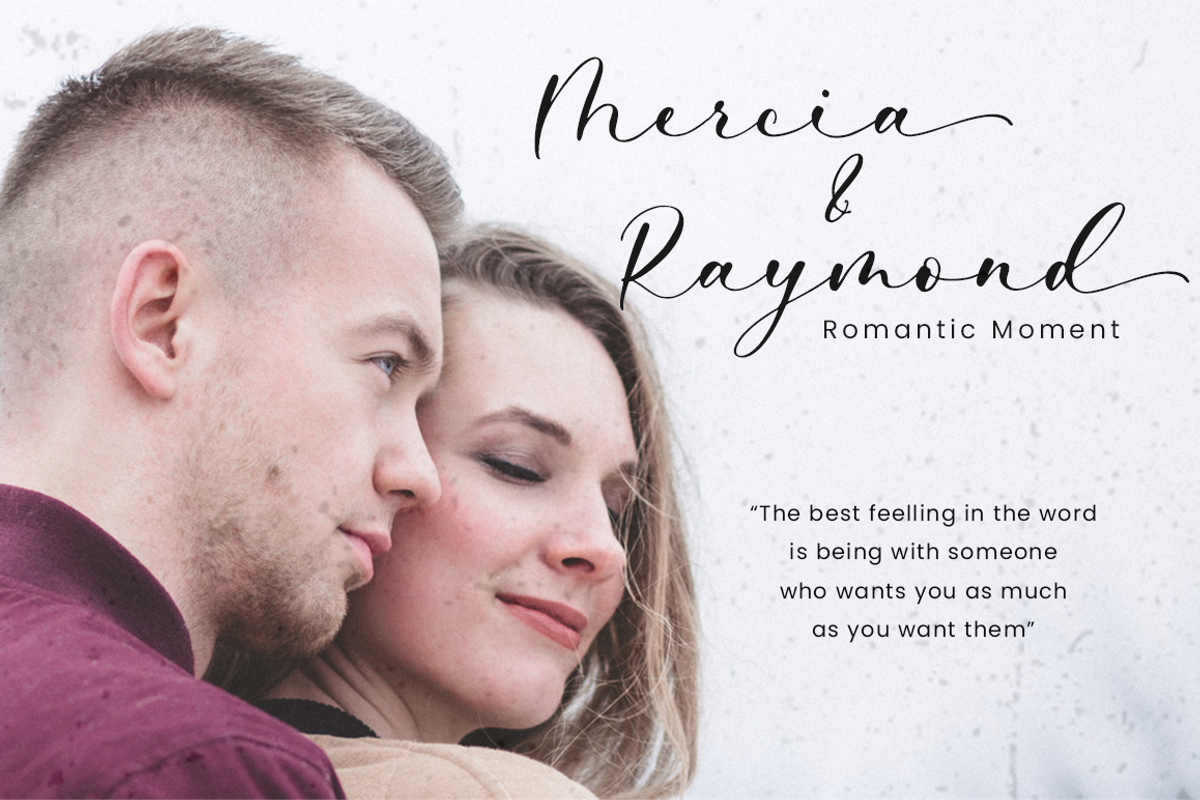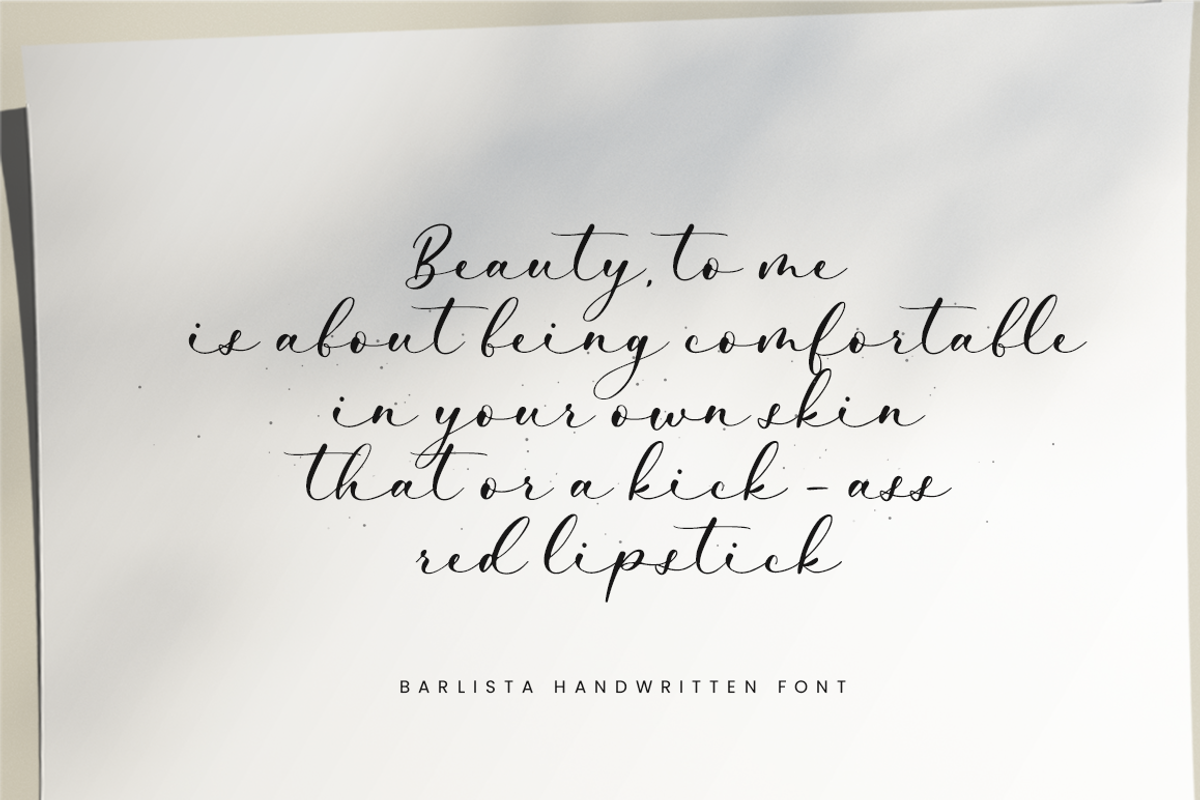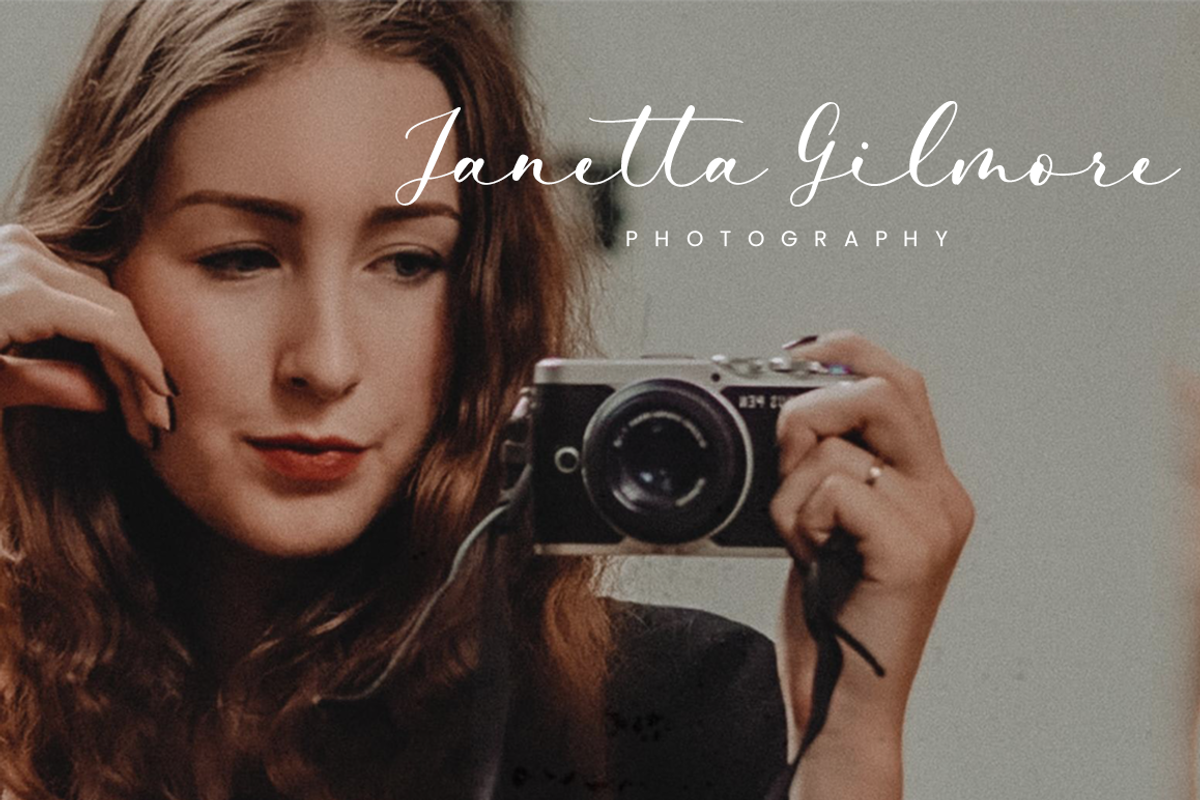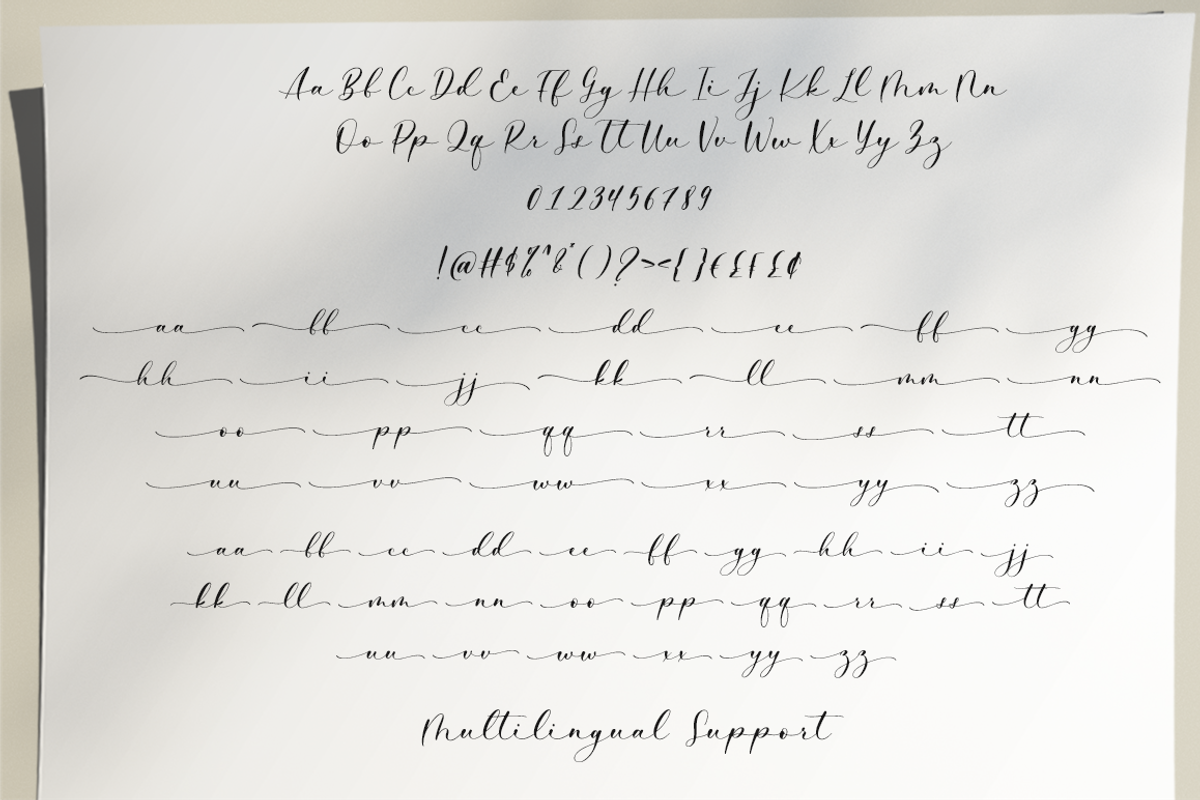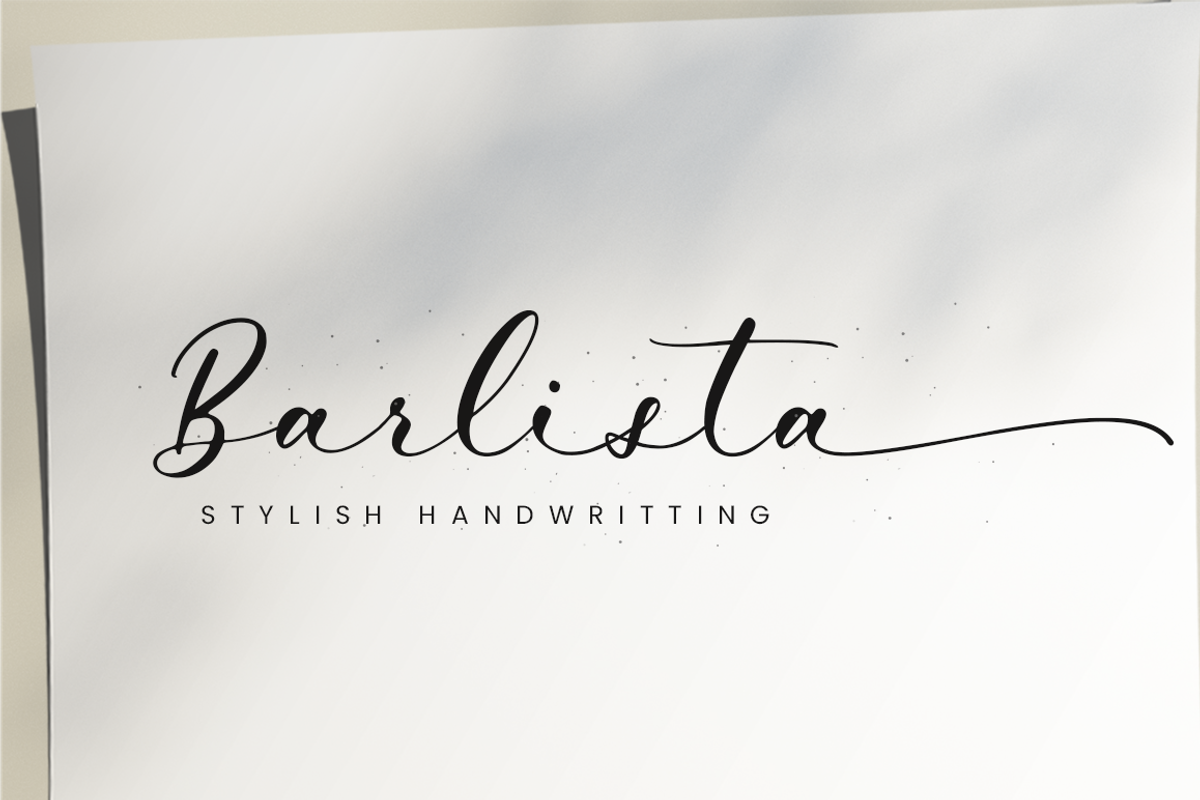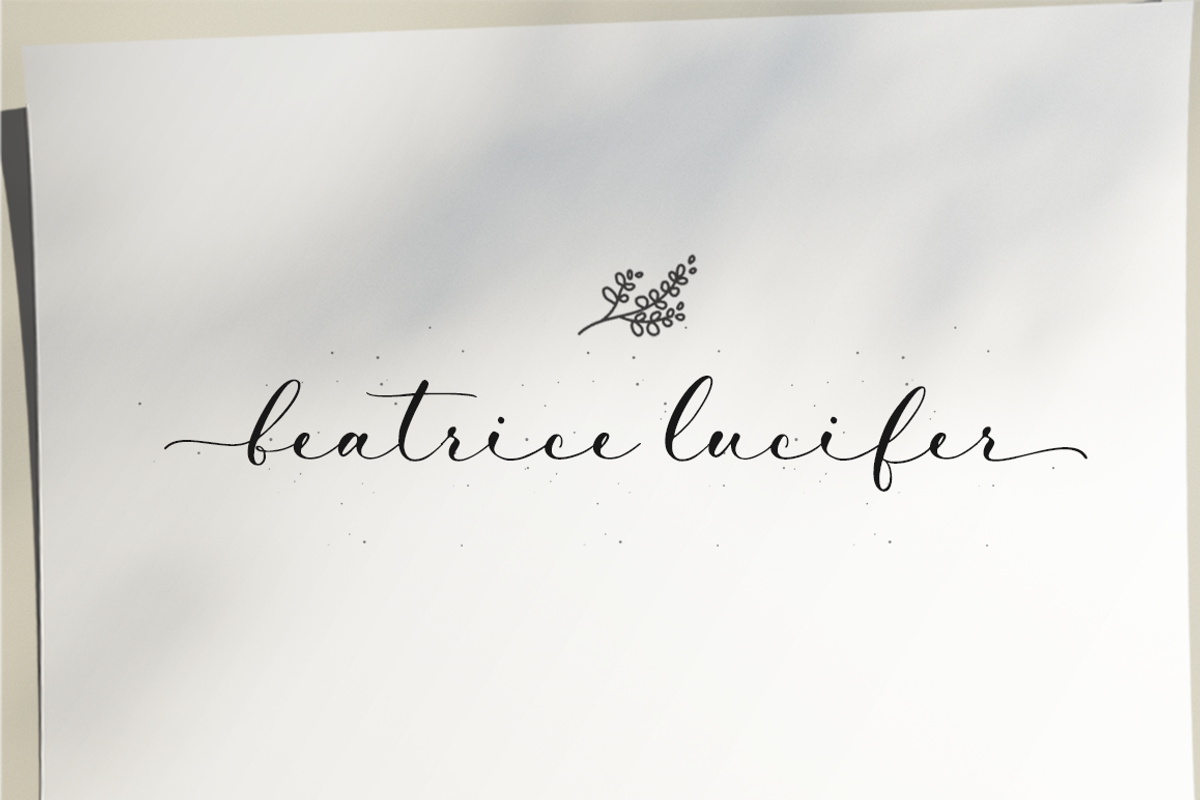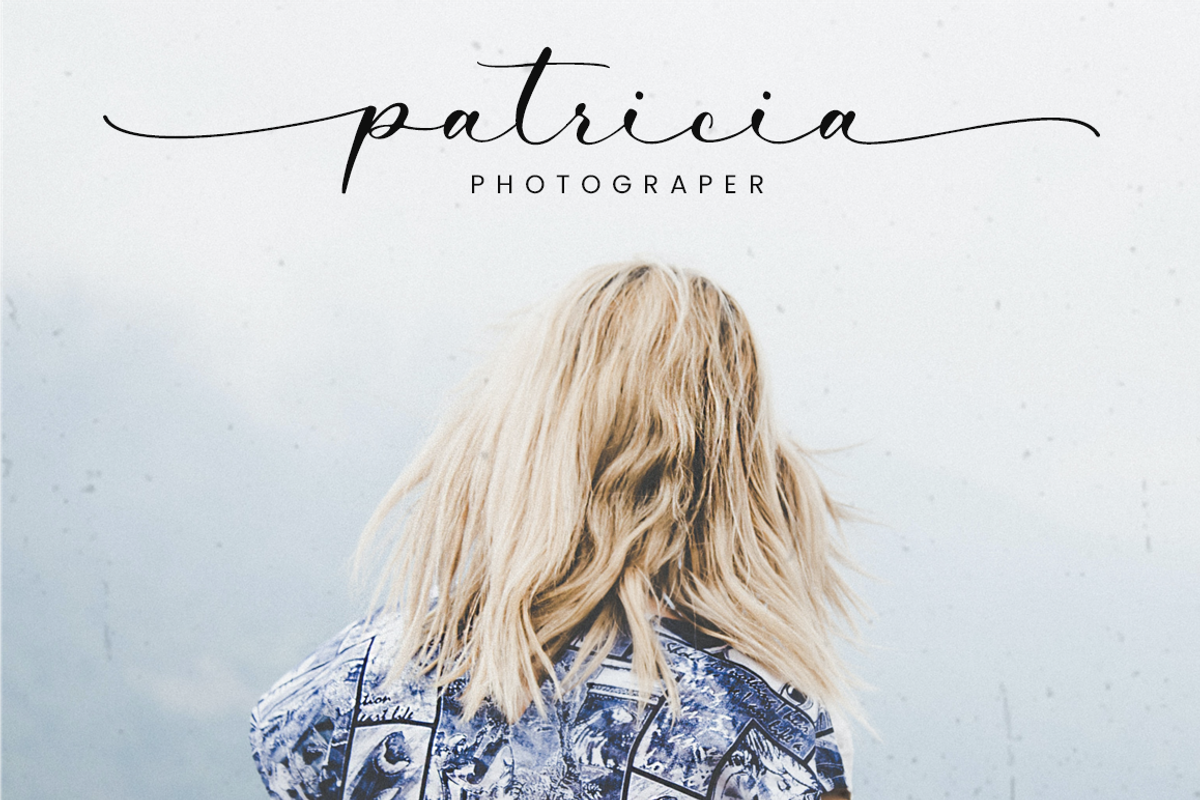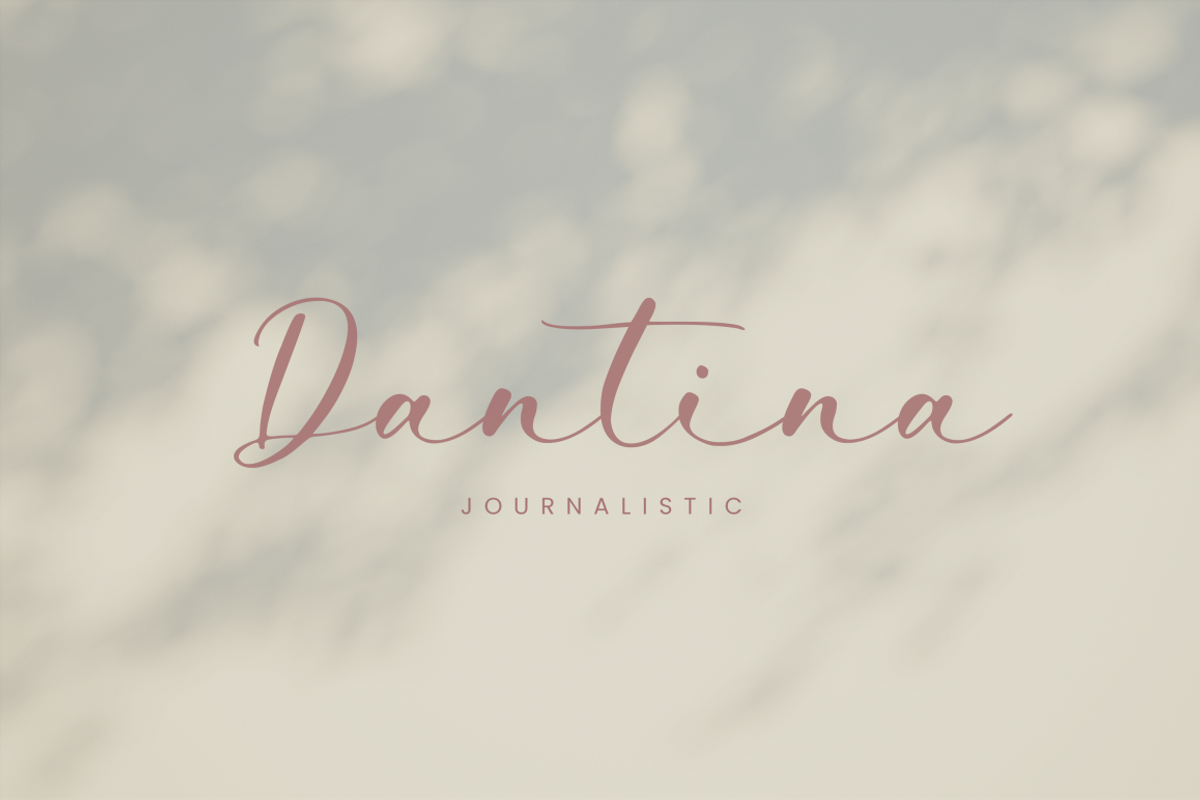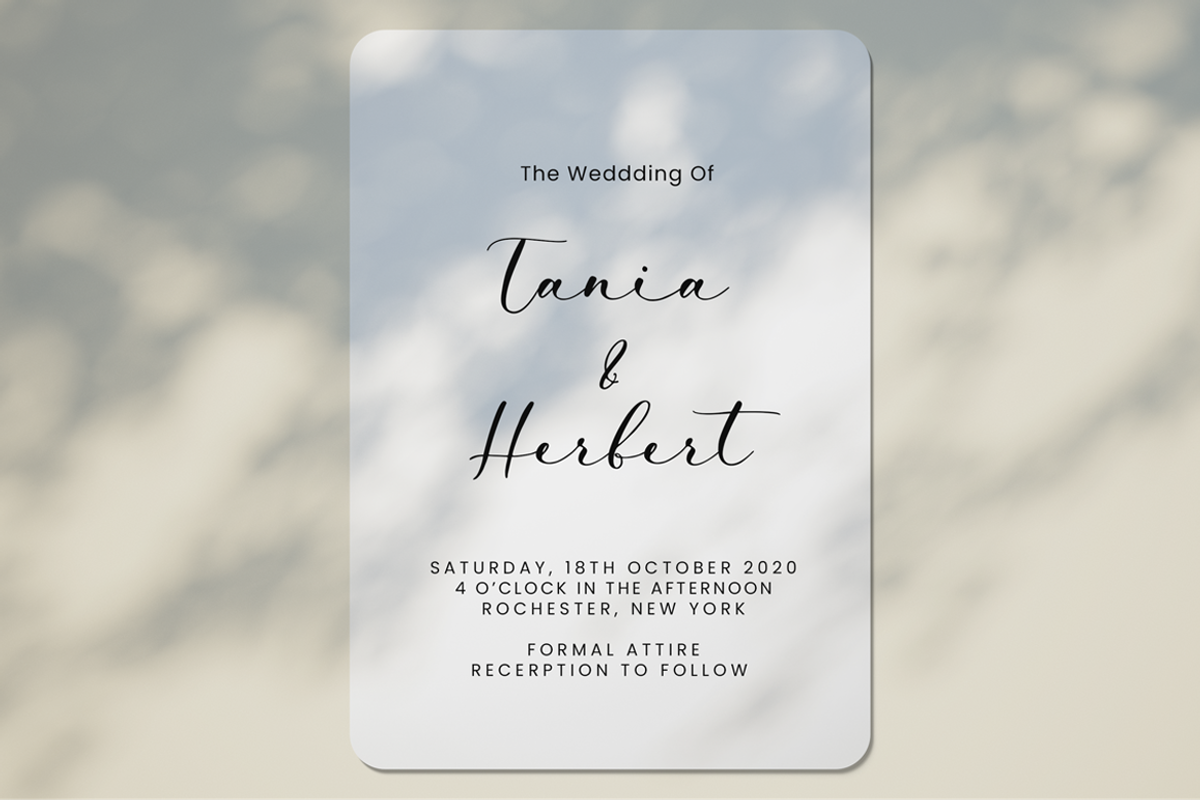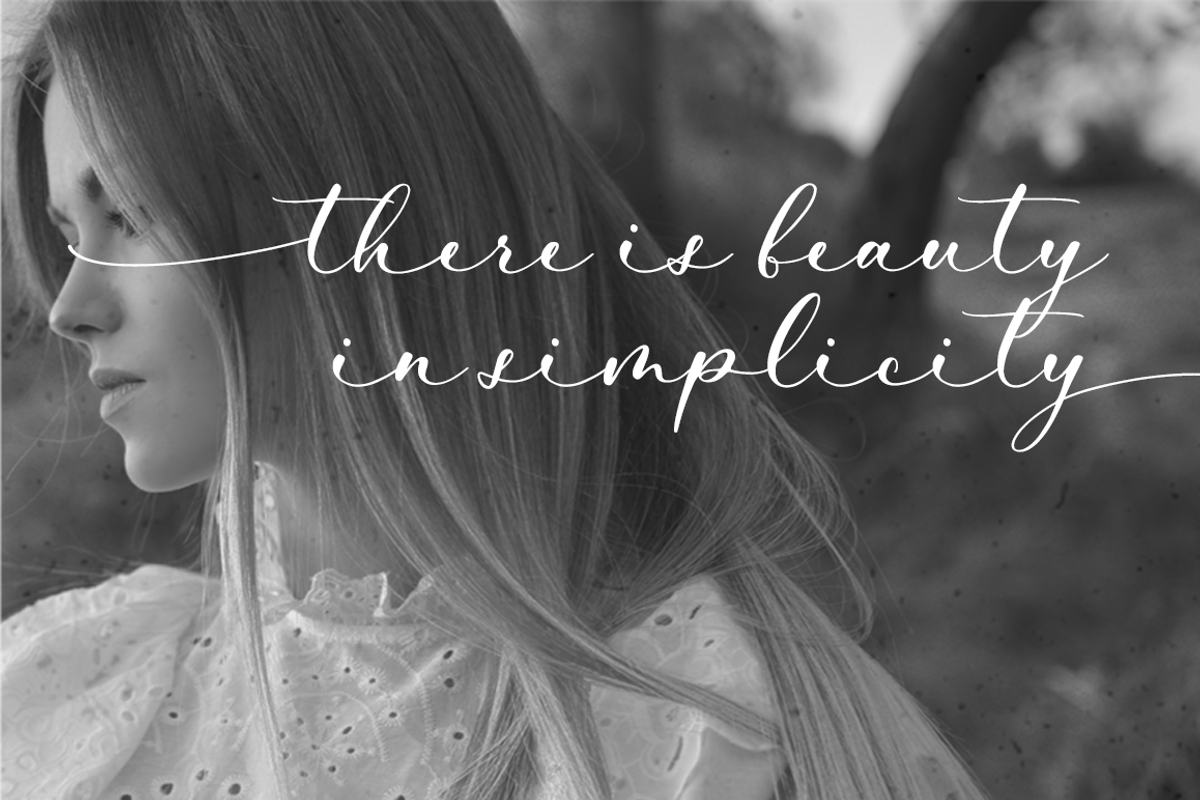
Barlista - Calligraphy Font
Barlista is a beautiful calligraphy font perfect for crafting, branding, invitation, stationery, wedding designs, social media posts, advertisements, product packaging, product designs, label, photography, watermark, special events, or anything.
Balrista comes with a full set of uppercase and lowercase letters, swash alternates, ligatures, multilingual symbols, numerals, and punctuation.